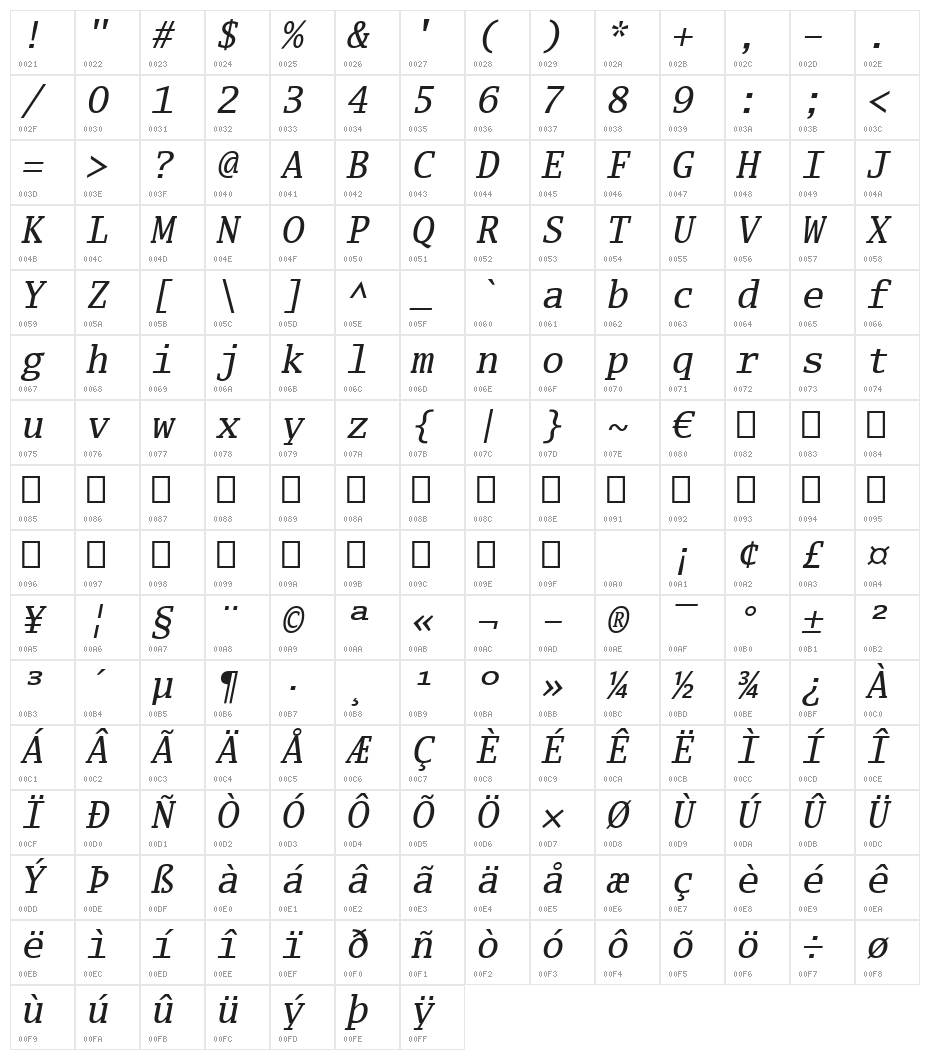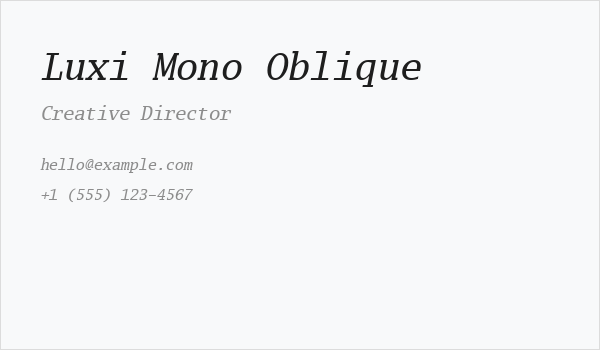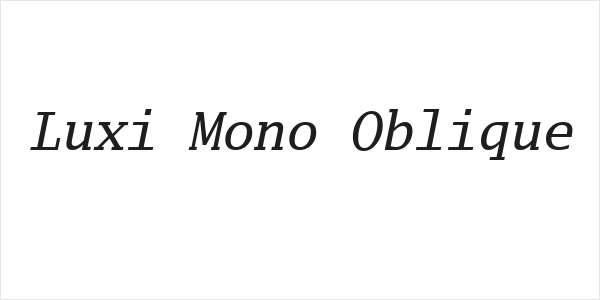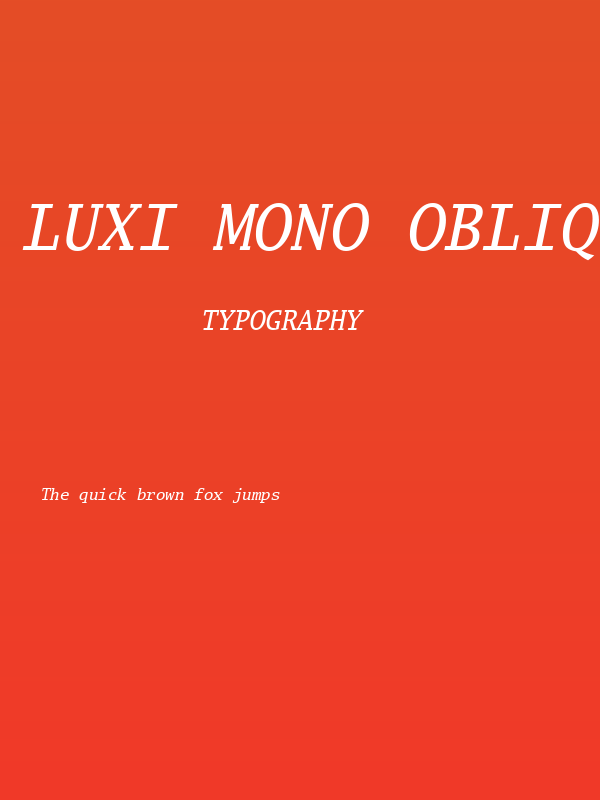
Luxi Mono Oblique Font
Luxi Mono Oblique Description
This font features a monospaced design with an oblique style, giving it a distinct slant that adds a dynamic feel to the otherwise uniform spacing of characters. Each letter and number is evenly spaced, making it ideal for coding and technical documents where alignment is crucial. The strokes are consistent in weight, providing a clean and modern appearance. The oblique angle adds a touch of elegance and movement, making it suitable for both professional and creative projects. The font maintains clarity and readability, even at smaller sizes, due to its precise character design.
Use CaseCoding, Technical documents, Creative projects
Proposed ProjectsIdeal for coding, technical documents, and creative projects requiring a modern and dynamic typeface.